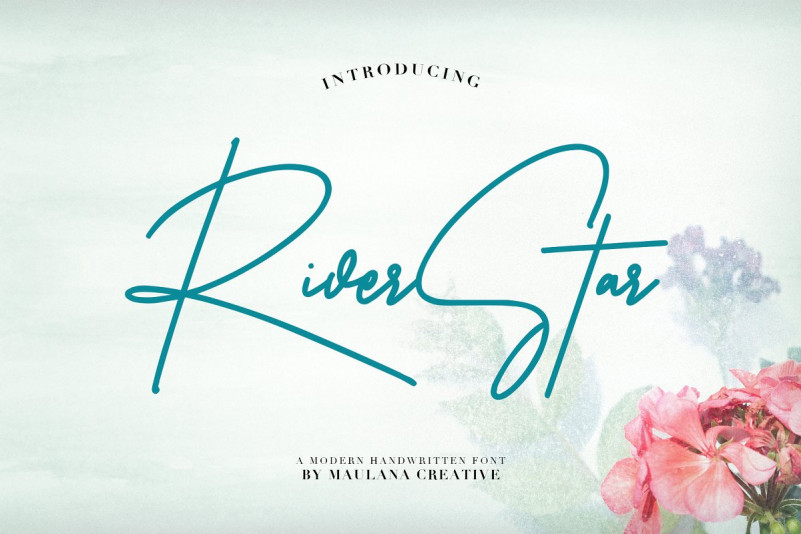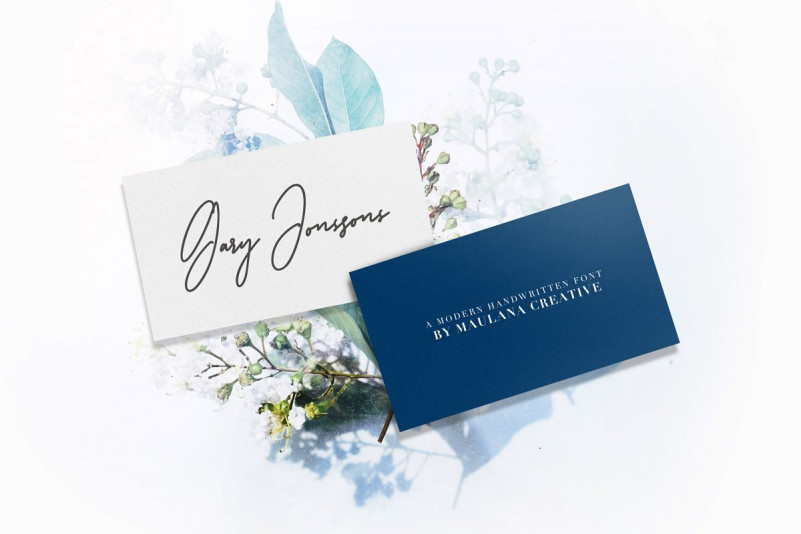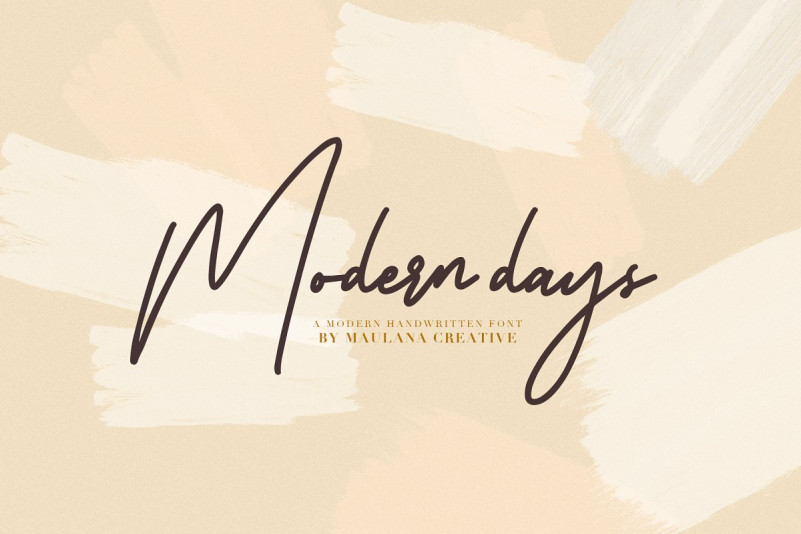
Introduce, my name is Riverstar Signature Font, I was made by authentic handwriting. I made it because want to make it to easier create a signature. You have the advantage of making a beautiful logo, beautify a t-shirt design, and you can make it easier of work on create packaging design, and more.